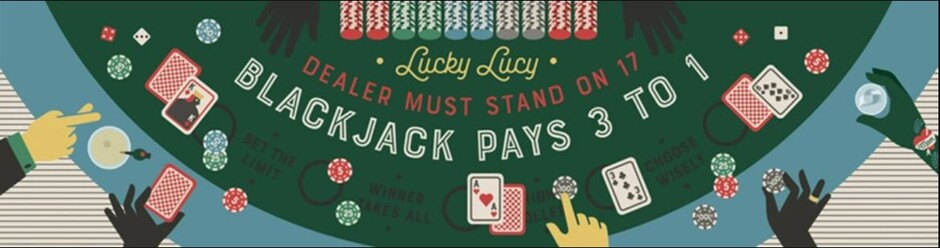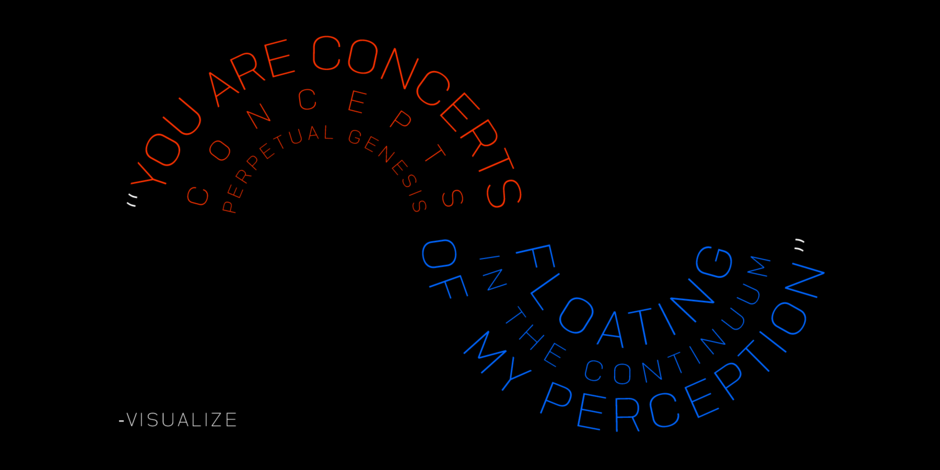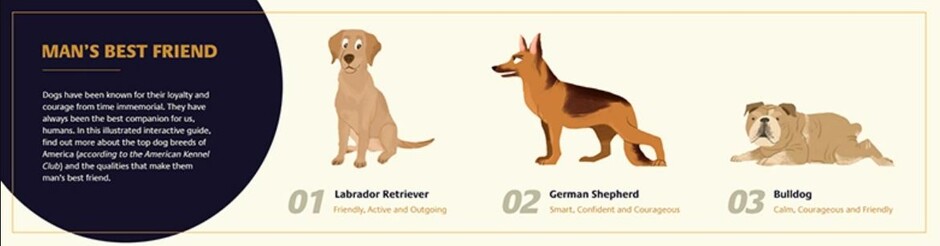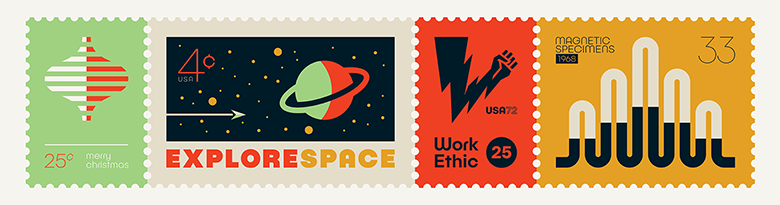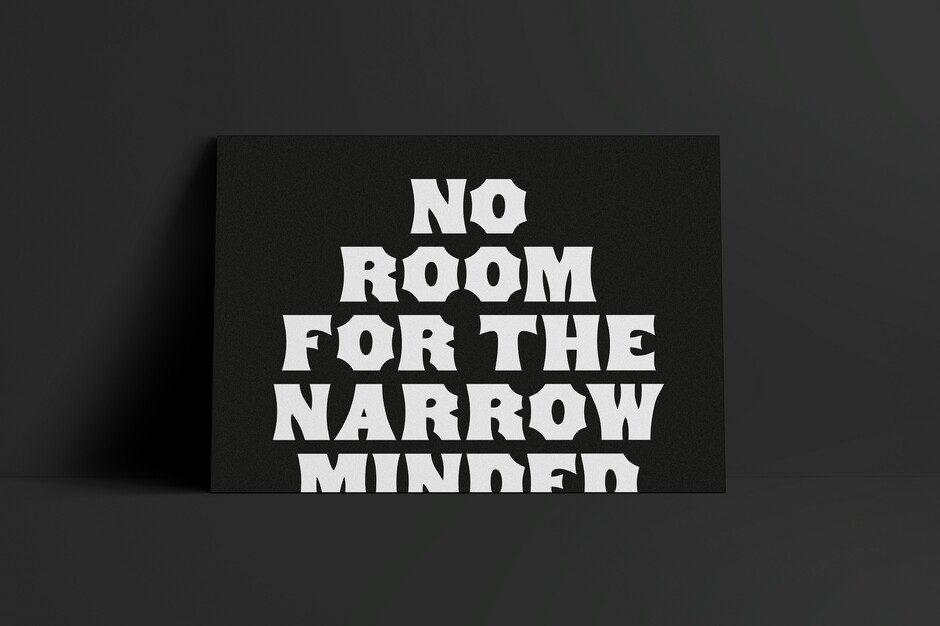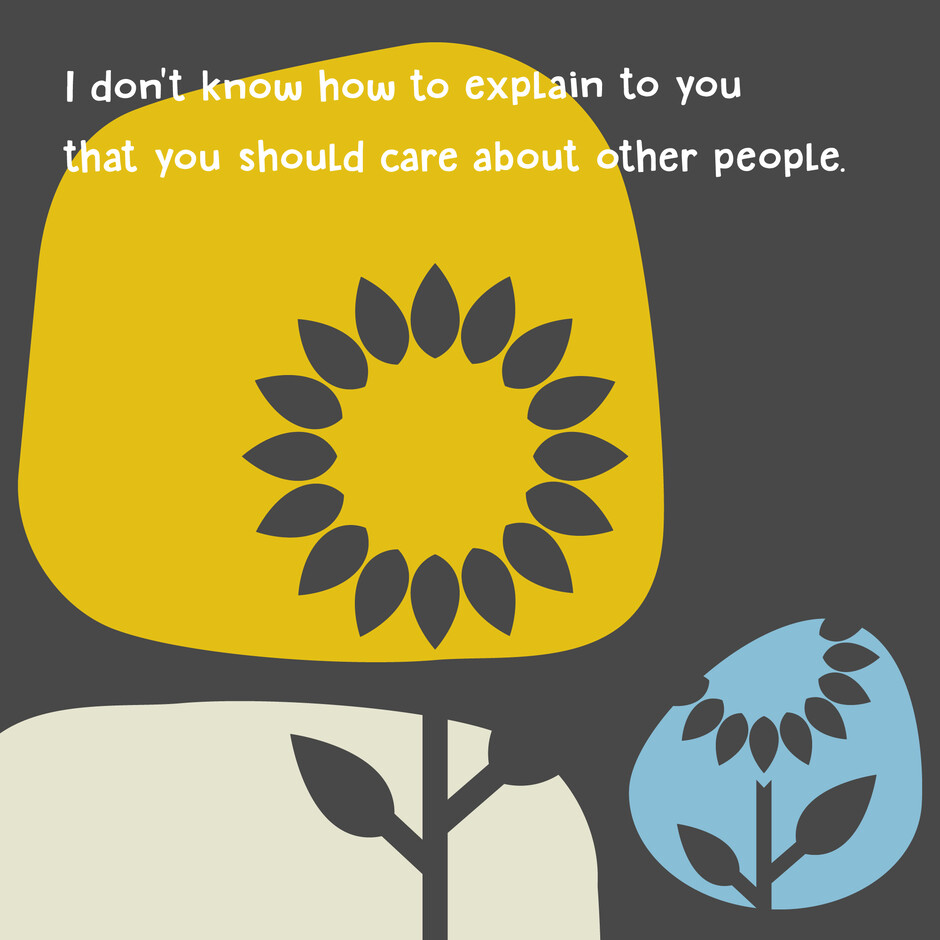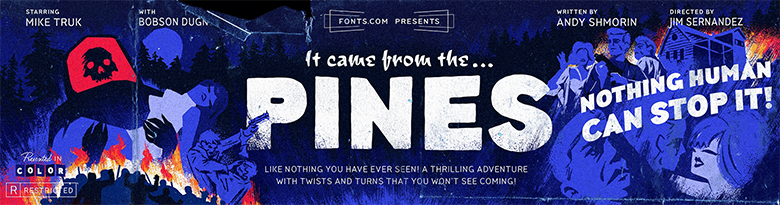
International Design Day
Where do you work and where are you located?
Independent, Glasgow UK
Which typeface did you design with?
Antique Tuscan
Why did you use this typeface?
A middle finger to racists, bigots, sexists, and haters of obscure display typefaces. Antique Tuscan printed in white on Colorplan Ebony.
Where do you work and where are you located?
Sole Proprietorship, Southborough, MA
Which typeface did you design with?
Sugary Pancake
Why did you use this typeface?
“Kindness for Ukraine” is a sociopolitical graphic meant to evoke sympathy for Ukraine during its time of war with Russia. The colors used to represent the Ukraine flag, and the official flower (the sunflower) represents the sympathy this country needs from us right now. I chose Sugary Pancake for my type treatment because it has a playful, child-like aesthetic. The text (“I don’t know how to explain to you that you should care about other people.”) is seemingly simple, and a child could understand it, yet many people just do not get it.
Where do you work and where are you located?
Freelancer, Remote from Greece
Which typefaces did you design with?
Katerina P Rounded
Describe how you used this typeface.
A glimpse in a poetic way of what inspiration means to me. The typeface’s thinness provides an eloquent view into what inspiration feels like. Typeface used is Katerina P Rounded Thin.
Designs from the Past
The Publica Play™ family by Marcus Sterz | Image Design by Scott Fuller
The Town family by Jason Vandenberg | Image Design by Andrew Hochradel
The TT Pines family by Ivan Gladkikh | Image Design by Josh Miranda
The Bourton family by Kimmy Design | Image Design by Laura Guardalabene
The Praxis® family by Gerard Unger | Image Design by Saawan Ebe